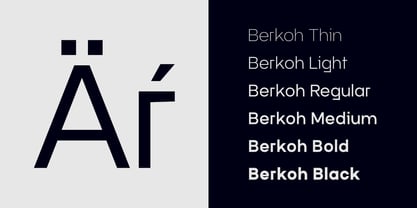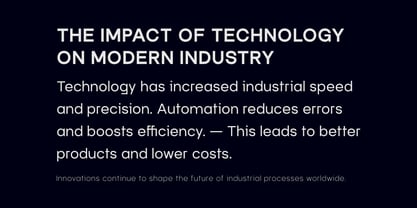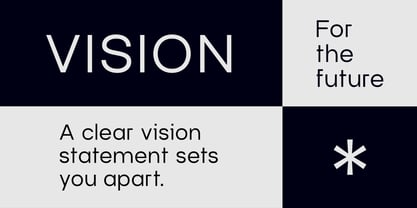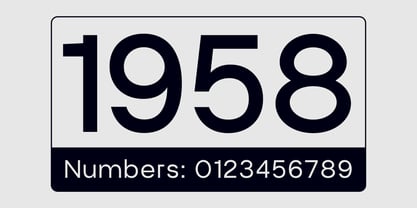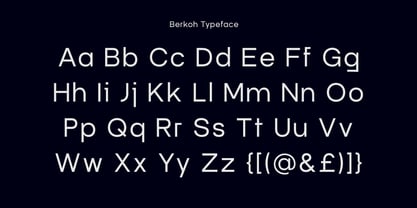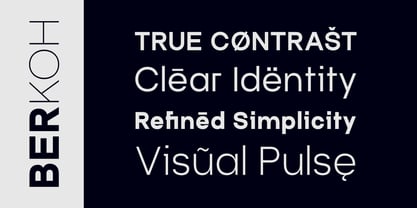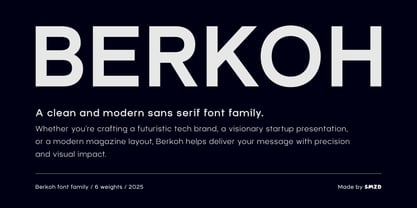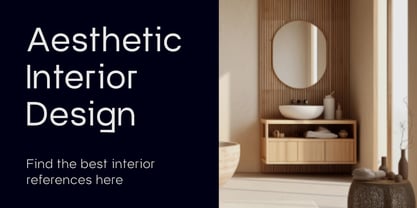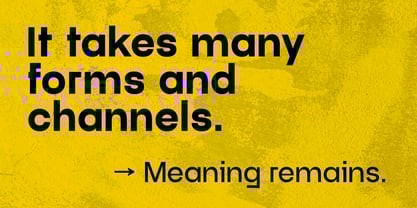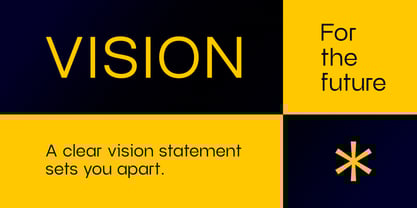
Berkoh
by SMZ Design
The Berkoh Font Family was designed by Szymon Mandziarz and published by SMZ Design. Berkoh contains 7 styles and family package options.
Berkoh is a modern geometric sans-serif font family that merges minimalism with character. Designed with clarity and flexibility in mind, Berkoh offers six distinct weights — Thin, Light, Regular, Medium, Bold and Black — making it ideal for both digital and print use.
With its clean lines and elegant curves, Berkoh is perfect for branding, editorial design, user interfaces, and bold headline typography. The font’s unique letterforms — especially in lowercase — provide a touch of personality without sacrificing readability.
Whether you're crafting a futuristic tech brand, a visionary startup presentation, or a modern magazine layout, Berkoh helps deliver your message with precision and visual impact.